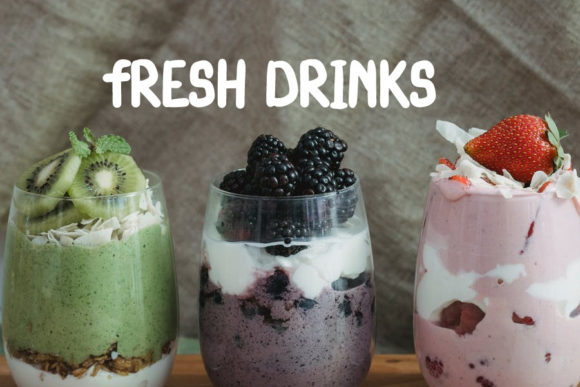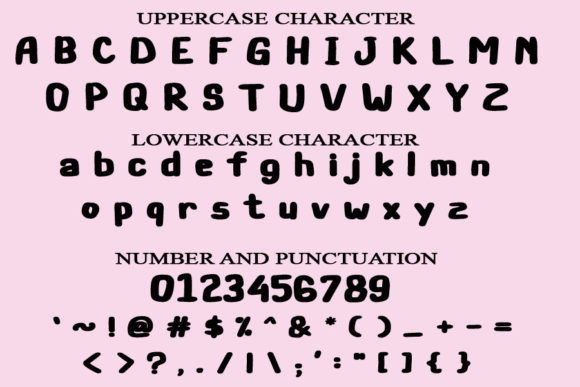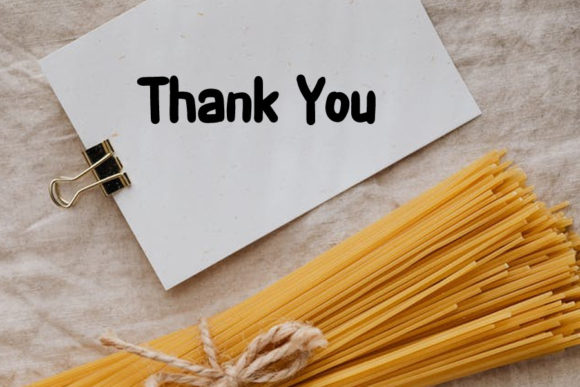
Introducing Healthy Milk Font: The Ultimate Display Font for Your Creative Projects
Are you a designer or crafter looking for a font that can elevate your creative projects to the next level? Look no further than Healthy Milk Font! This cool, friendly, and adaptable display font is perfect for adding a touch of personality to any design. In this article, we’ll explore the features and benefits of Healthy Milk Font, and show you how to make the most of its endless possibilities.
What is Healthy Milk Font?
Healthy Milk Font is a display font designed to make a statement. Its unique and stylish lettering makes it perfect for use on posters, flyers, prints, and any other design project where you want to grab attention. The font is characterized by its clean lines, friendly curves, and adaptable style, making it suitable for a wide range of creative applications.
Key Features of Healthy Milk Font
- Cool and Friendly Design: Healthy Milk Font boasts a modern and approachable design that will appeal to a wide range of audiences.
- Adaptable Style: The font’s versatility makes it perfect for use on various design projects, from posters and flyers to prints and digital media.
- Easy to Read: Despite its stylish design, Healthy Milk Font remains highly legible, making it perfect for use on titles, headings, and short paragraphs.
- Endless Possibilities: With Healthy Milk Font, you can experiment with various design styles, from minimalist to elaborate, and still achieve stunning results.
Benefits of Using Healthy Milk Font
So, why choose Healthy Milk Font for your design projects? Here are just a few benefits you can expect:
- Stand Out from the Crowd: Healthy Milk Font’s unique design ensures that your designs will stand out from the competition and grab attention.
- Save Time and Effort: With Healthy Milk Font, you can create stunning designs in no time, thanks to its ease of use and adaptability.
- Enhance Your Brand: Healthy Milk Font can help you develop a consistent brand identity across various design projects, making it perfect for businesses and individuals alike.
How to Use Healthy Milk Font
Using Healthy Milk Font is easy! Here are some tips to get you started:
- Experiment with Different Sizes: Healthy Milk Font looks great in various sizes, from large titles to smaller text.
- Play with Colors: The font’s adaptability makes it perfect for use with different colors and color schemes.
- Mix and Match with Other Fonts: Healthy Milk Font pairs well with other fonts, allowing you to create unique and interesting typography combinations.
In conclusion, Healthy Milk Font is a versatile and stylish display font that’s perfect for designers and crafters looking to elevate their creative projects. With its cool and friendly design, adaptable style, and endless possibilities, this font is sure to become a staple in your design toolkit. So why wait? Download Healthy Milk Font today and start exploring its many uses!